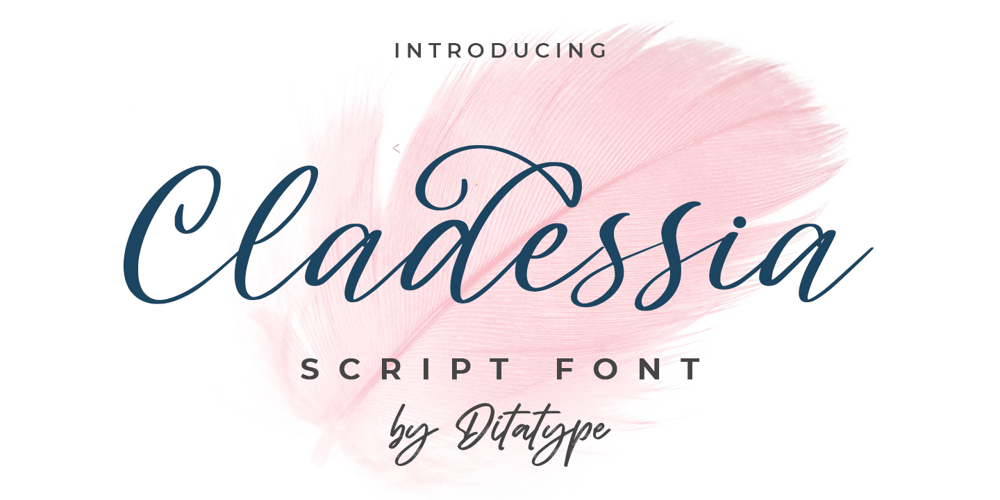
Cladessia Font Family was designed by Donis Miftahudin and published by Ditatype. Cladessia contains 1 styles and family package options. Cladessia is a beautiful handwritten font. This font will make your design project beautiful and attractive. Cladessia is best used for branding logotype, and quotes.Features: Standart Ligatures Stylistic Set Multilingual Support PUA Encoded Numerals and Punctuation Thank you for downloading premium fonts from Dita Type